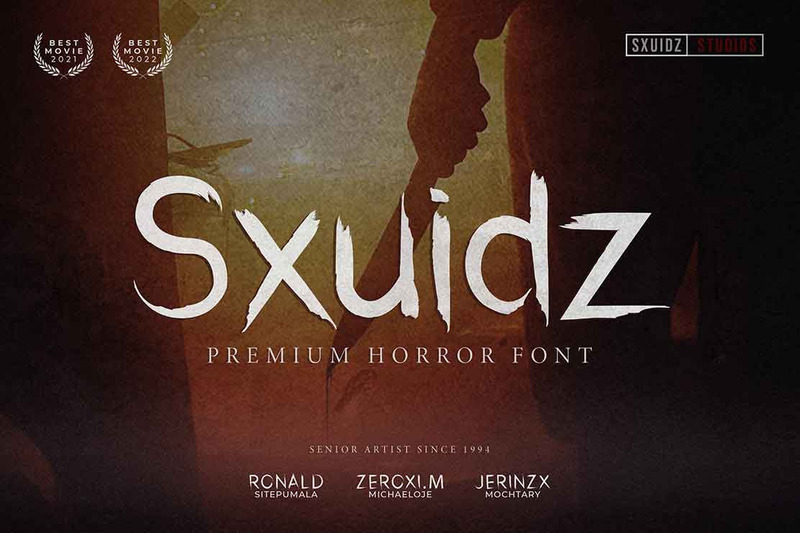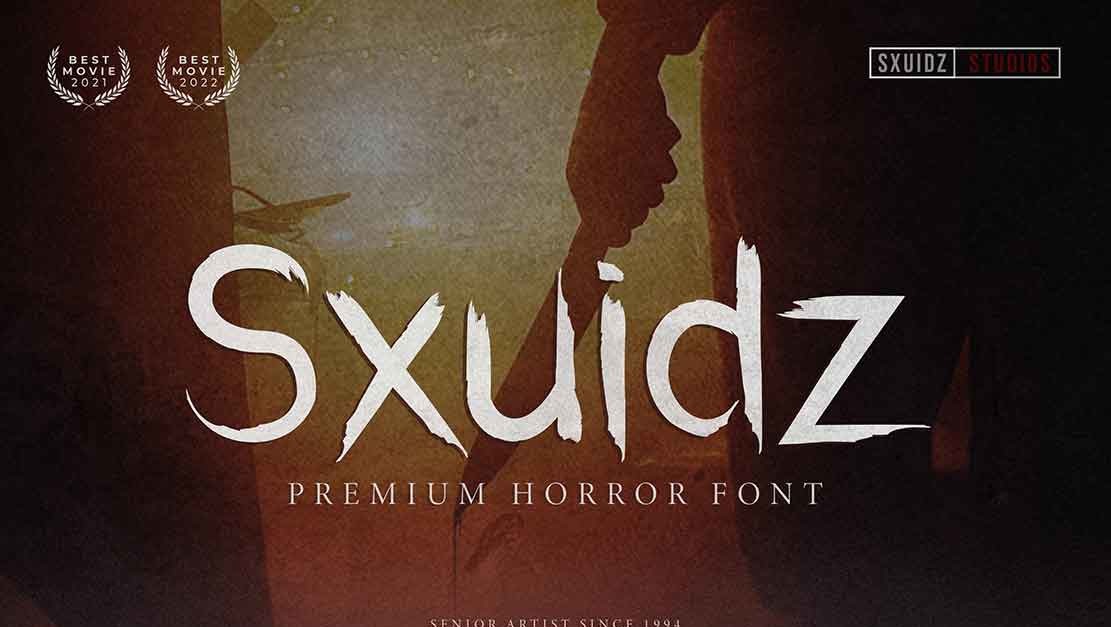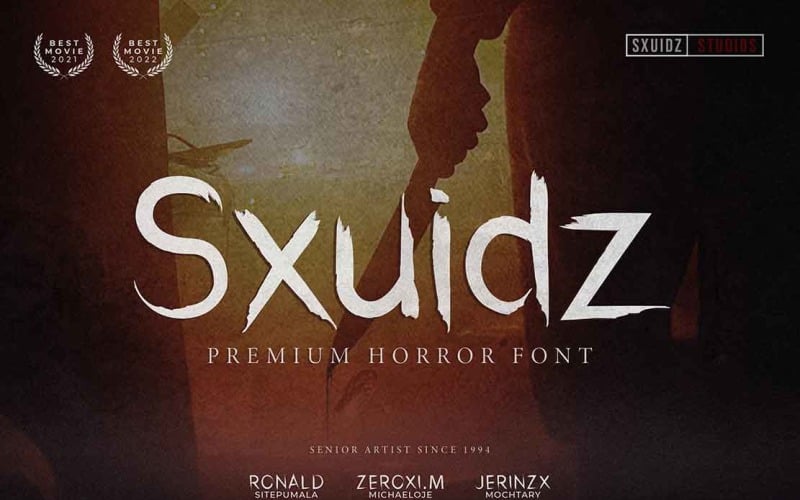
Sxuidz – Premium Horror Font
Sxuidz is perfect for branding projects, logo, wedding designs, social media posts, advertisements, product packaging, product designs, label, photography, watermark, invitation, stationery and any projects that need handwriting taste.